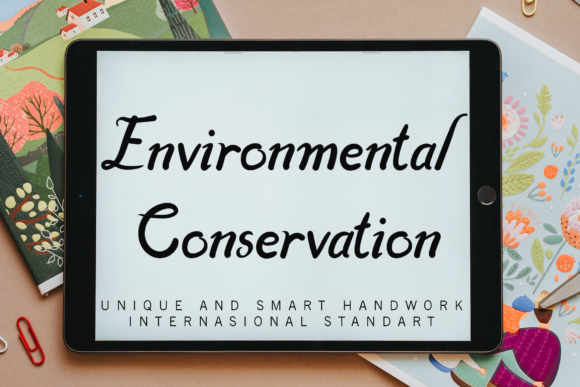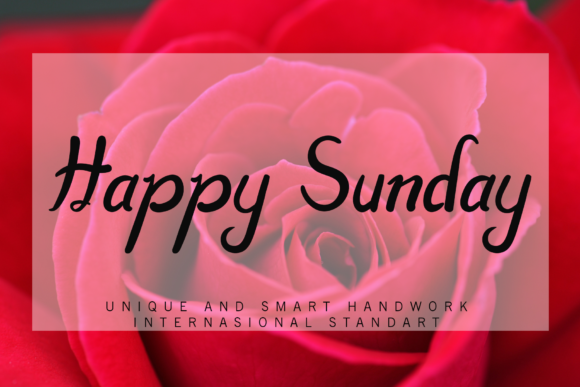
Green House Font
db-ku.com - Script & Handwritten -- Green House is an elegant handwritten font. Use this gorgeous and unique font to bring any DIY project to life!